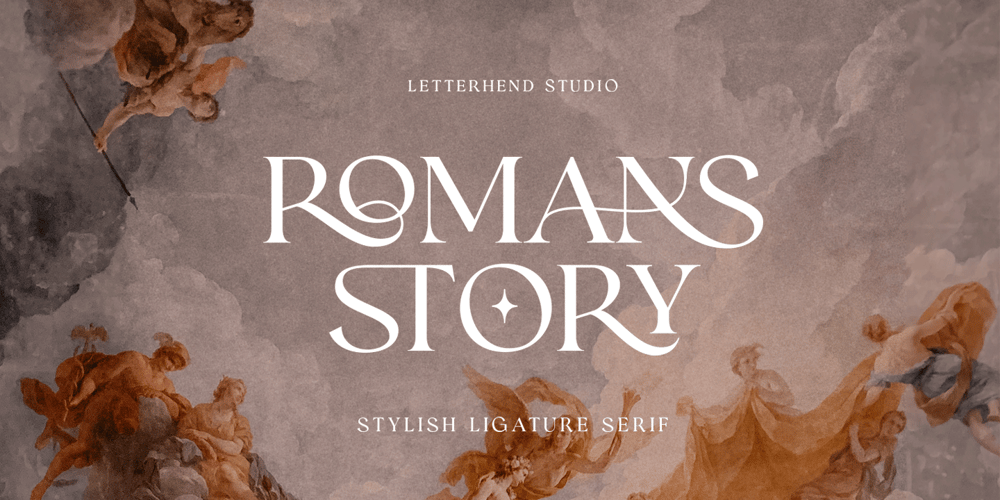
Romans Story Font Family was designed by Hendry Juanda and published by Letterhend. Romans Story contains 1 styles and family package options. Romans Story is a sophisticated ligature serif from us. This typeface has been made carefully to make sure its premium quality and luxury feel. The ligatures makes this typeface unique and stands out rather than the regular serif font. Very suitable for logo, headline, tittle, and the other various formal forms such as invitations, labels, logos, magazines, books, greeting / wedding cards, packaging, fashion, make up, stationery, novels, labels or any type of advertising purpose.Features : numbers and punctuation multilingual ligatures alternates PUA encoded We highly recommend using a program that supports OpenType features and Glyphs panels like many of Adobe apps and Corel Draw, so you can see and access all Glyph variations. How to access opentype feature : letterhend.com/tutorials/using-opentype-feature-in-any-software/